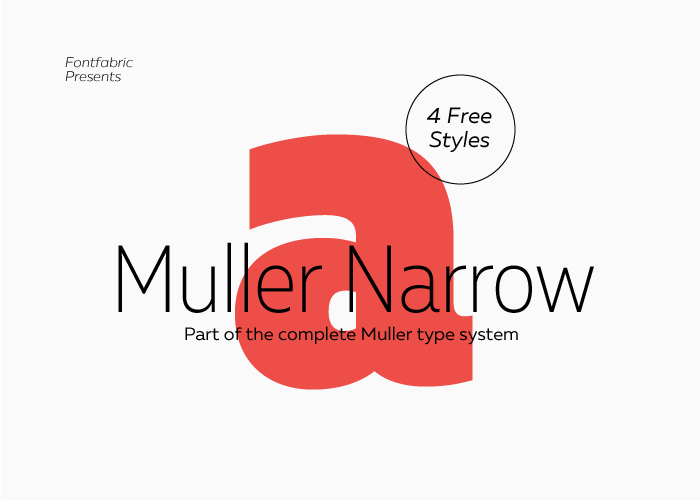
Muller Narrow Font Family
Muller Narrow sub-family consists of 20 weights, raging from Thin to Heavy with matching Italics. It’s a part of the Complete Muller Type System which contains 44 different font styles. This sub-family is suited for everything, raging from advertising, packaging, editorial and branding, to web and screen projects.